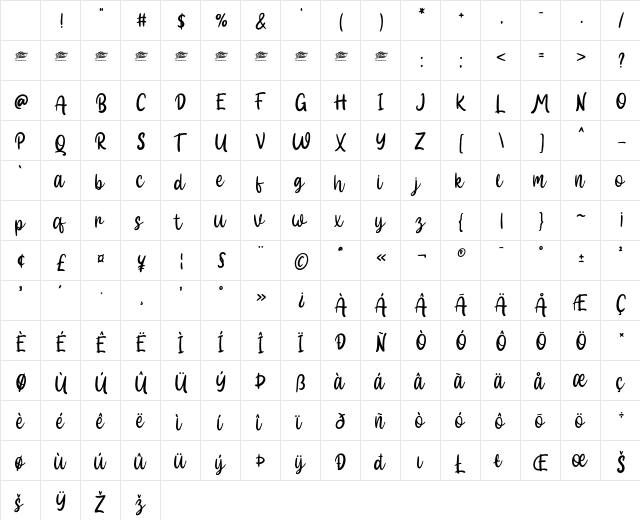
Complete Hallo White - Personal Use Regular glyph index. Displaying only characters natively supported by Hallo White - Personal Use Regular font.
Hallo White - Personal Use is a composed and adaptable typeface that performs quietly and consistently across a wide range of design contexts.